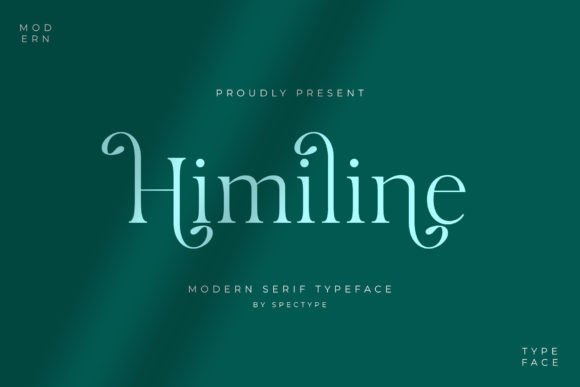
**Introducing the Himiline Font Collection: Where Modern Meets Elegance**
Prepare to be captivated by the exquisite Himiline Font Collection, a captivating ensemble of serif fonts meticulously crafted to elevate your digital creations to unparalleled heights.
As an artist, you yearn for fonts that effortlessly translate your vision into reality. Fonts that possess the power to evoke emotions, command attention, and leave an unforgettable impression. The Himiline Font Collection embodies this very essence, empowering you to bring your words to life with unrivaled style and sophistication.
Meticulously designed with the discerning eye of a master calligrapher, each stroke and curve in the Himiline fonts exudes an air of grace and refinement. Whether you're crafting enchanting wedding invitations, designing captivating social media posts, or creating breathtaking stationary art, the Himiline Font Collection provides an endless canvas for your creative expression.
**Unleash the Power of Himiline: Your Font for Modern Applications**
In today's digital landscape, where attention spans are fleeting, it's paramount to capture hearts and minds with visuals that resonate and inspire. The Himiline Font Collection is your secret weapon, empowering you to create designs that captivate audiences and leave a lasting impact.
With its versatility as its hallmark, Himiline seamlessly adapts to a myriad of modern applications. From sleek website designs that exude professionalism to captivating social media campaigns that demand attention, Himiline empowers you to create a cohesive brand identity that stands out from the crowd.
**Embrace the Beauty of Serif Fonts with Himiline**
Serif fonts, renowned for their timeless elegance and readability, have long been the choice of discerning designers. The Himiline Font Collection captures the essence of this beloved font style, introducing a modern twist that breathes new life into this classic art form.
With Himiline, you'll discover a font that effortlessly combines tradition and innovation. Its delicate serifs add a touch of sophistication to any design, while its clean lines and modern sensibility ensure that your message is conveyed with clarity and impact.
**Fall in Love with Himiline: Your Font for All Seasons**
The beauty of the Himiline Font Collection lies in its versatility, a font that seamlessly adapts to any season or occasion. Whether you're creating heartwarming holiday cards, delightful summer invitations, or sophisticated business proposals, Himiline empowers you to convey your message with style and finesse.
Its timeless appeal ensures that your designs will remain relevant and engaging, transcending the boundaries of time. With Himiline, you have a font that's always in season, ready to elevate your creations to new heights.
**Experience the Himiline Difference: A Font that Inspires**
The Himiline Font Collection is more than just a набор ин�трументов — it's an invitation to unleash your creativity and create designs that captivate and inspire. Its versatility, elegance, and modern sensibility empower you to create masterpieces that resonate with audiences and leave an unforgettable impression.
Join the countless designers and artists who have embraced the power of Himiline. Let your imagination soar, translate your vision into reality, and create designs that stand the test of time.
With the Himiline Font Collection, the possibilities are endless. Your journey to creating exceptional designs begins now. Embrace the beauty of Himiline and elevate your work to the next level.